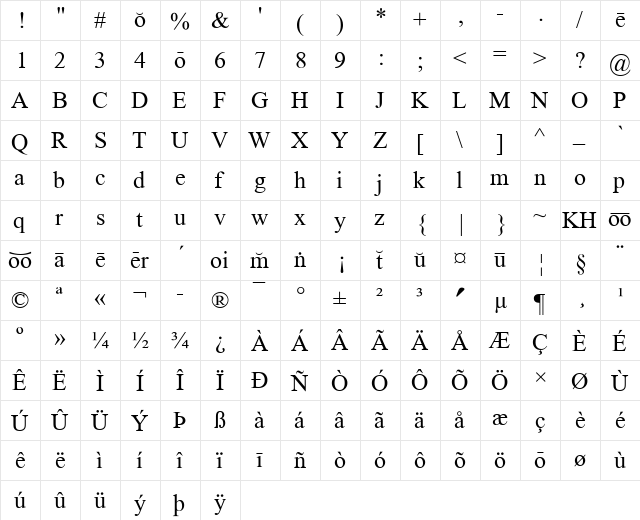
WP Pronunciation Regular
Design Context for WP Pronunciation Typeface
WP Pronunciation offers clean, dependable letterforms without strong stylistic allegiance, making it a practical choice for designers who need flexibility.